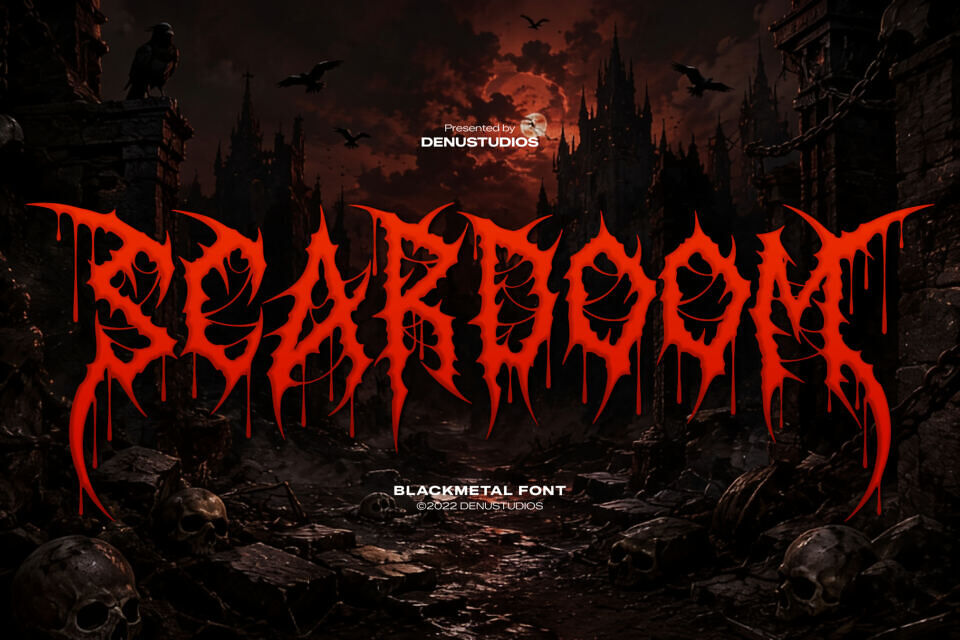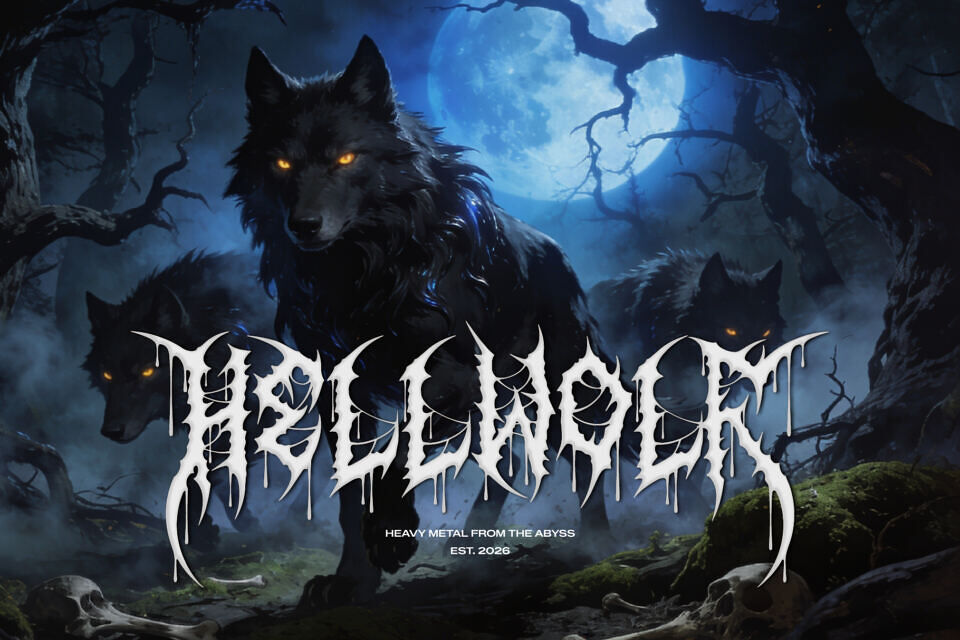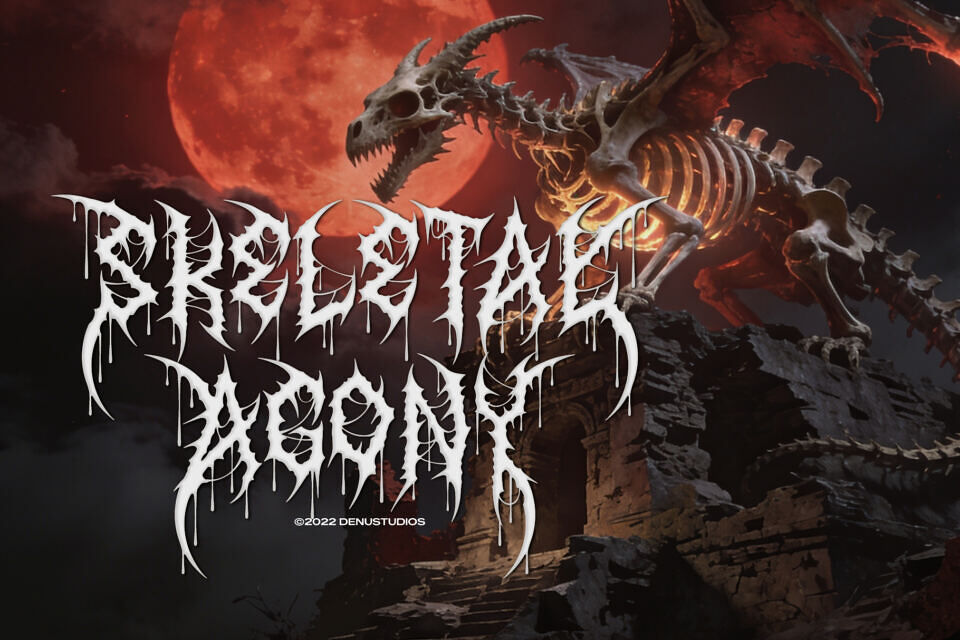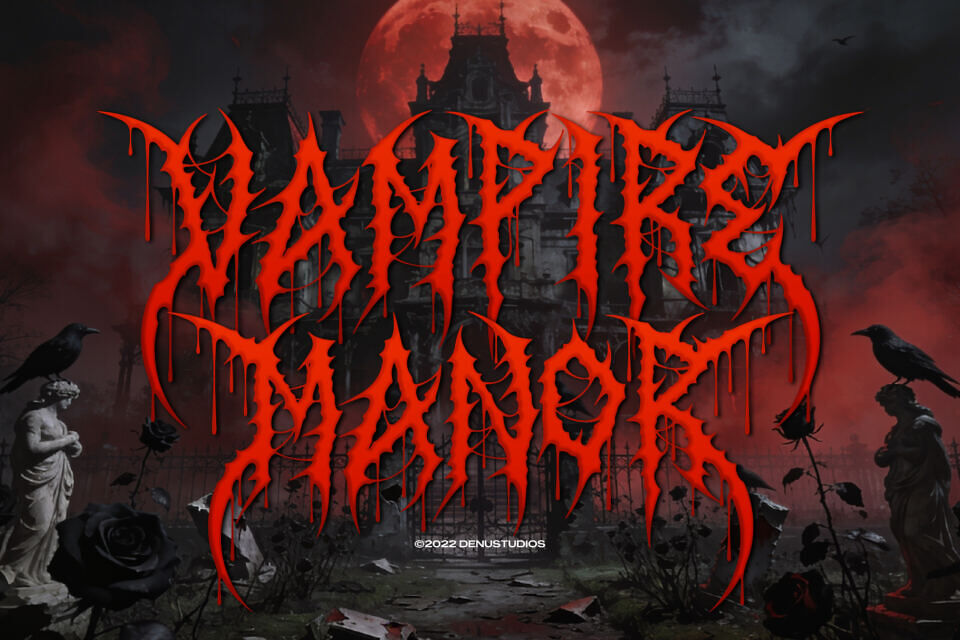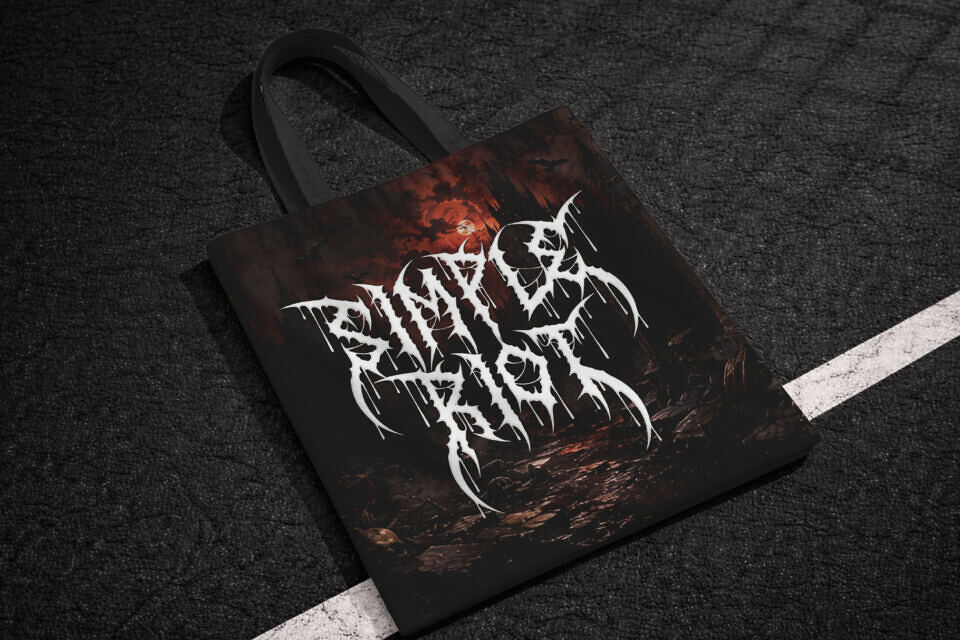
Scardoom Font
Scardoom is an intense, hardcore blackletter font designed by Denu Studios. Drawing heavy inspiration from the dark, aggressive aesthetics of black metal, death metal, and gothic subcultures, it features jagged, thorn-like edges and dramatic, dripping letterforms.
This highly stylized typeface is perfect for bold branding, band logos, concert posters, streetwear apparel, and any project that demands a sinister, raw, and impactful visual presence straight from the abyss.